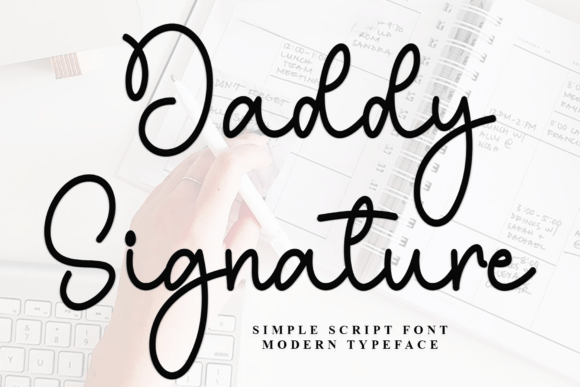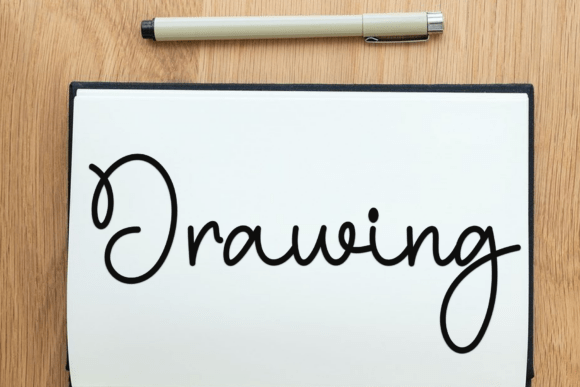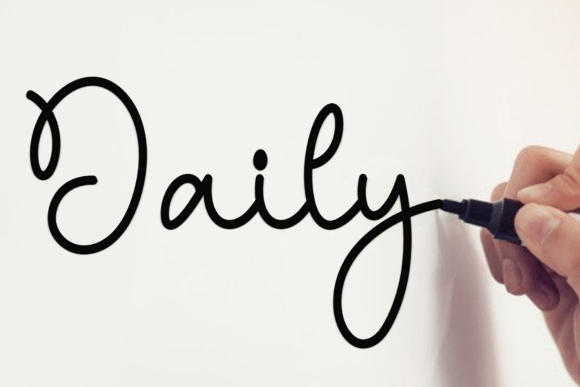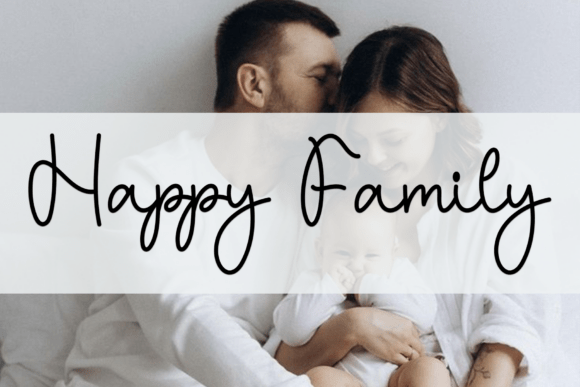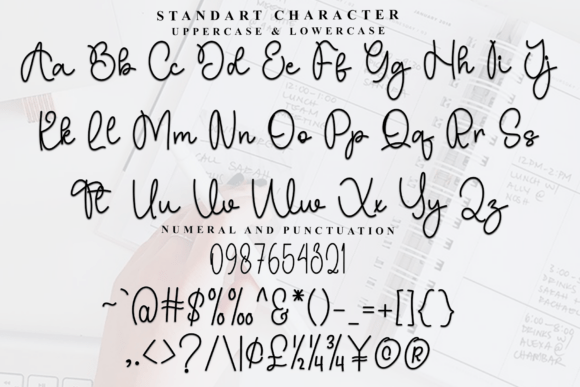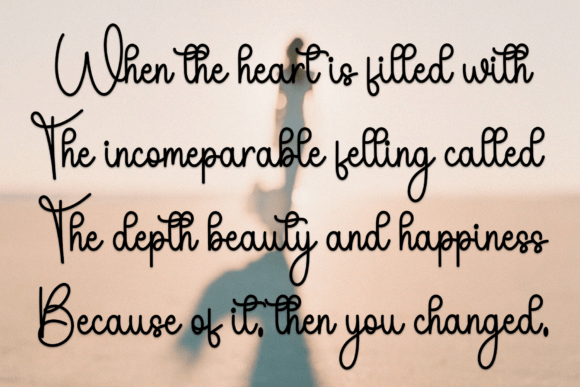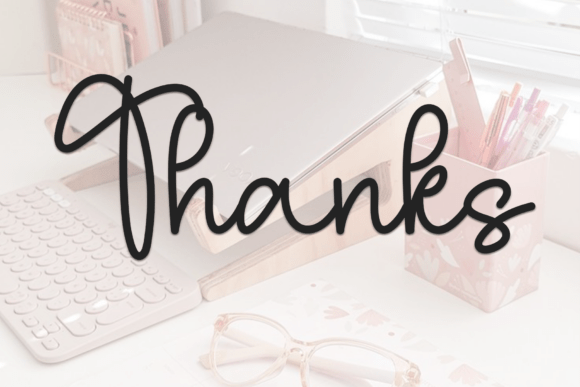
The Perfect Signature: Unleashing Your Creativity with Daddy Signature Font
Do you remember the feeling of creating something truly special as a child, only to proudly sign it with a flourish of your favorite pen? That moment of pride and ownership is what makes a great signature, and it’s what inspired the designers behind the Daddy Signature Font.
This beautiful and eye-catching font is designed to capture that same sense of uniqueness and personality, making it perfect for designers looking to add a touch of warmth and character to their projects. With its soft, distinctive strokes, the Daddy Signature Font is versatile and meaningful, suitable for a wide range of applications, from design projects to crafts and more.
Whether you’re a seasoned designer or just starting out, the Daddy Signature Font is a valuable addition to your toolkit, offering endless possibilities for creative expression and self-expression.
Daddy Signature Font Key Features
- Unique Characteristics: Features a unique, hand-drawn style with a mix of cursive and script elements, giving it a personal and expressive touch
Daddy Signature Font Review
I recently had the chance to work with “Daddy Signature Font” and I must say, it’s a unique and playful typeface. Here’s my honest review.
- Expressive flair: This font has a lot of character and can add a fun touch to any project.
- Wide range of applications: From logos to social media graphics, “Daddy Signature Font” can be used in various contexts.
- Easy to read: Despite its unconventional design, the font remains legible, making it a great choice for informal projects.
- Limited scalability: While the font looks great at small sizes, it may not hold up well to larger font sizes.
- Lack of sophistication: The font’s playful nature may not be suitable for more formal or professional projects.
- May not be suitable for body text: The font’s unique design may be distracting when used for large blocks of text.
While “Daddy Signature Font” has its limitations, it’s a great choice for projects that require a touch of whimsy and personality. If you’re looking to add some flair to your designs, this font is definitely worth considering.
Getting the Most Out of Daddy Signature Font
To get the most out of Daddy Signature Font, experiment with different font sizes, colors, and styles to find the perfect look for your design. You can also use the font in combination with other design elements, such as images and graphics, to add visual interest to your design.
Daddy Signature Font is perfect for adding a personal touch to your designs, such as:
- Creating custom business cards or invitations
- Designing personalized gifts or merchandise
- Adding a unique touch to your social media graphics
Great Vibes is a modern, elegant script font that is perfect for creating a professional and sophisticated look. It features a flowing, connected feel that makes it ideal for use in branding, advertising, and editorial design. Unlike Daddy Signature Font, Great Vibes has a more refined and polished appearance, making it suitable for high-end projects.
Carolyna Pro is a beautiful, handwritten font that is great for adding a personal touch to designs. It features a mix of elegance and playfulness, making it perfect for use in invitations, wedding designs, and other creative projects. Compared to Daddy Signature Font, Carolyna Pro has a more dynamic and expressive feel, making it ideal for designers who want to add some personality to their work.
Playfair Display is a luxurious, high-end font that is perfect for use in premium branding, advertising, and editorial design. It features a classic, elegant feel that is reminiscent of traditional typography. Unlike Daddy Signature Font, Playfair Display has a more formal and sophisticated appearance, making it suitable for high-end projects that require a touch of elegance.